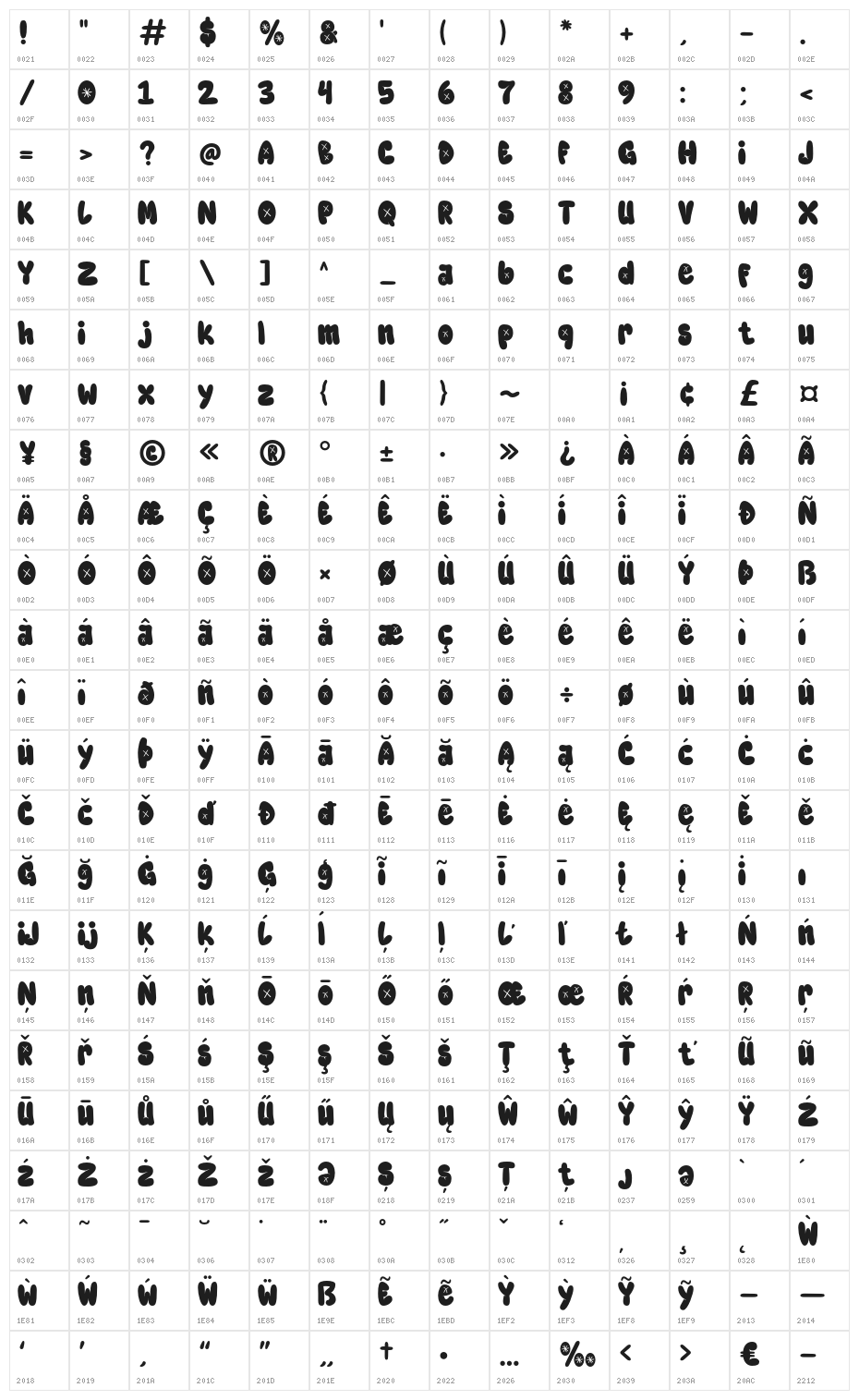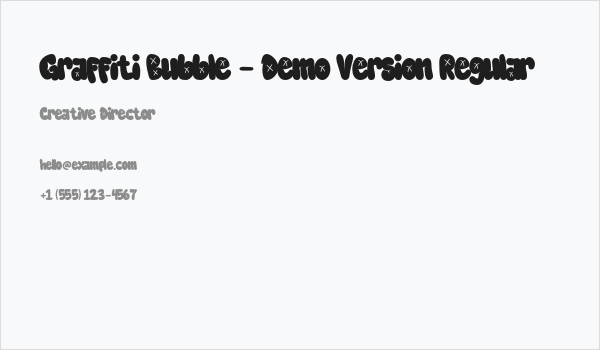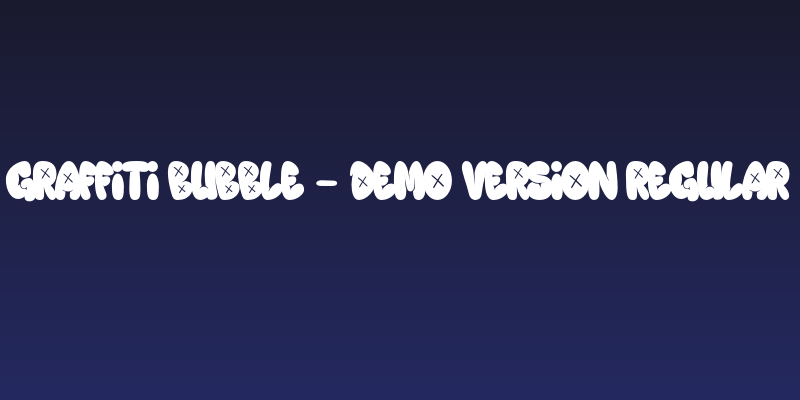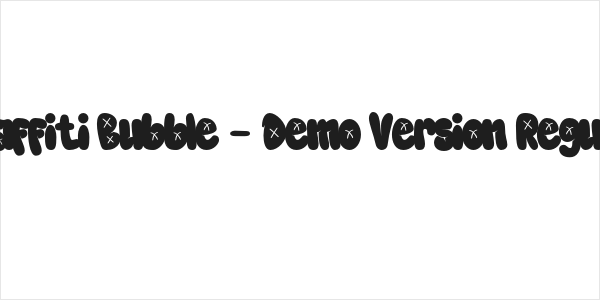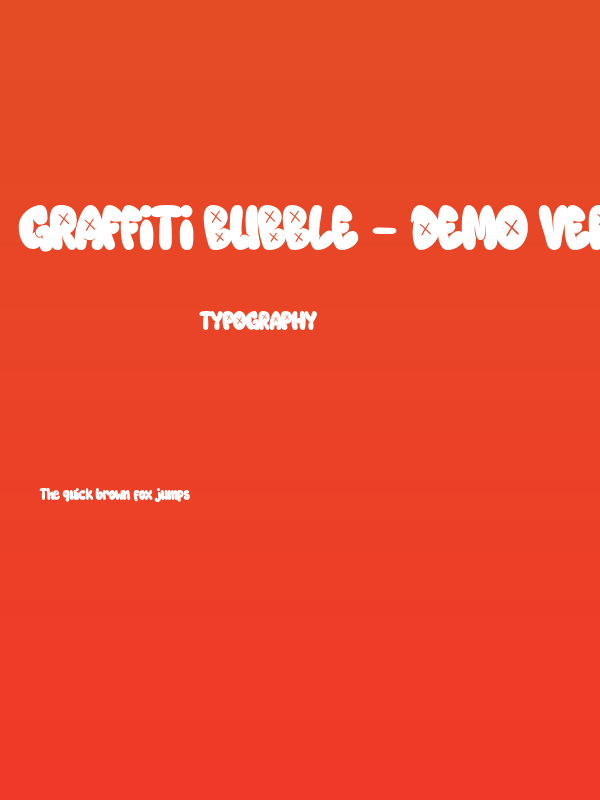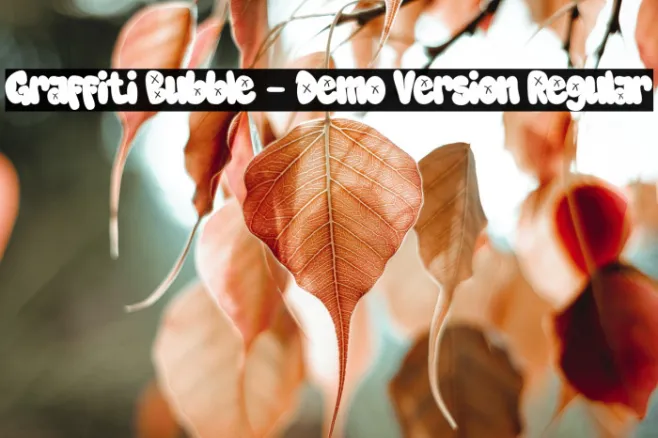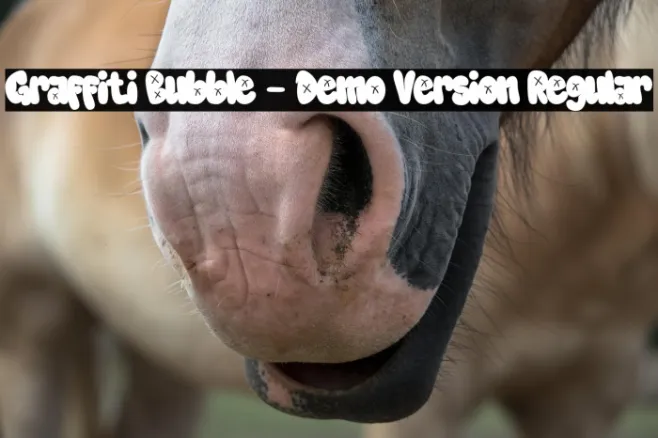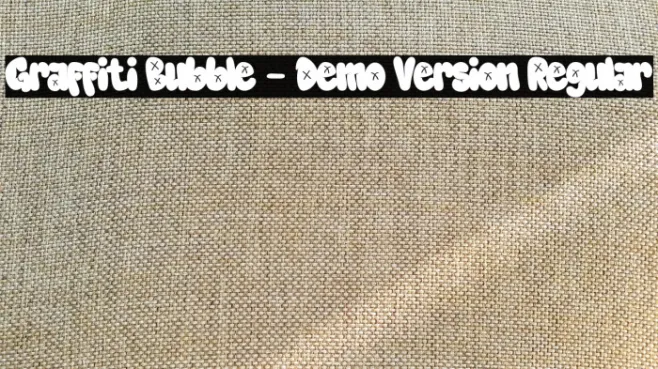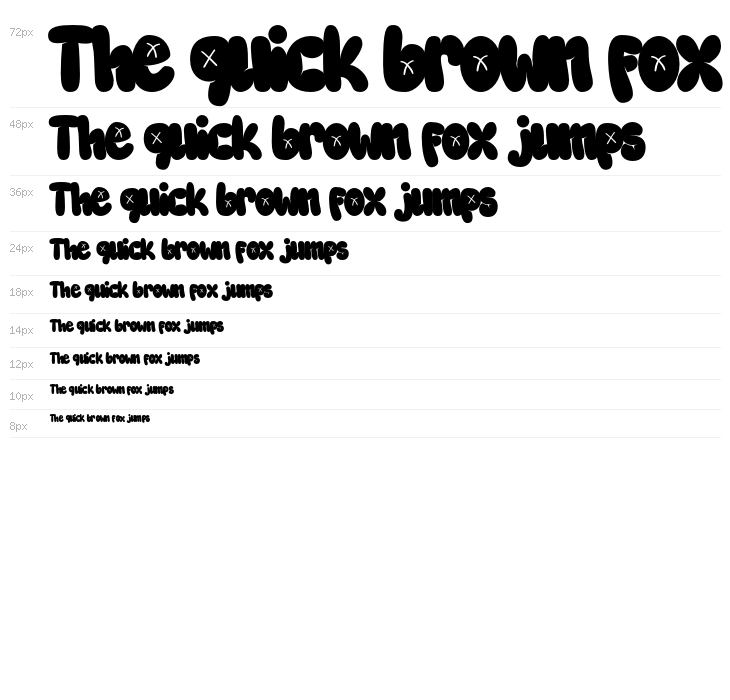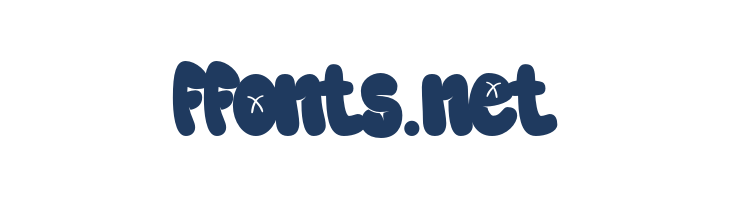
Graffiti Bubble - Demo Version Regular Font
This font features a bold, playful style reminiscent of graffiti art, with each character appearing as if it has been inflated like a balloon. The letters are rounded and thick, with a consistent stroke width that gives them a uniform appearance. The unique design includes small cross marks within the characters, adding a distinctive flair. This font exudes a sense of fun and creativity, making it ideal for projects that require a youthful and energetic vibe.
| Proposed Projects | Perfect for street art-inspired designs, children's book covers, playful branding, and event posters. |